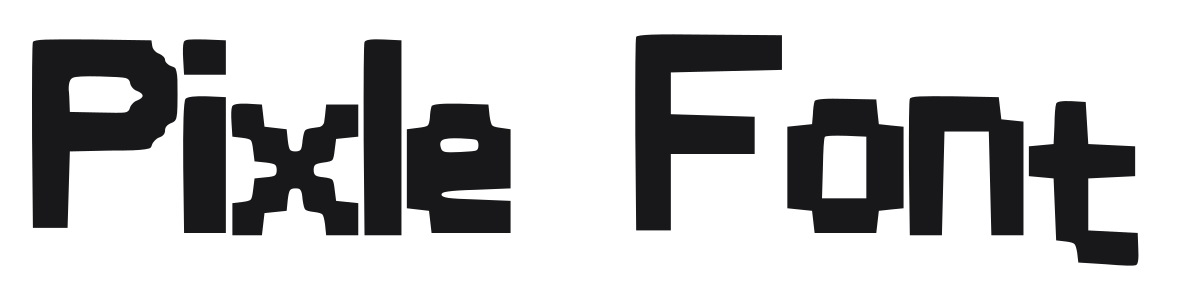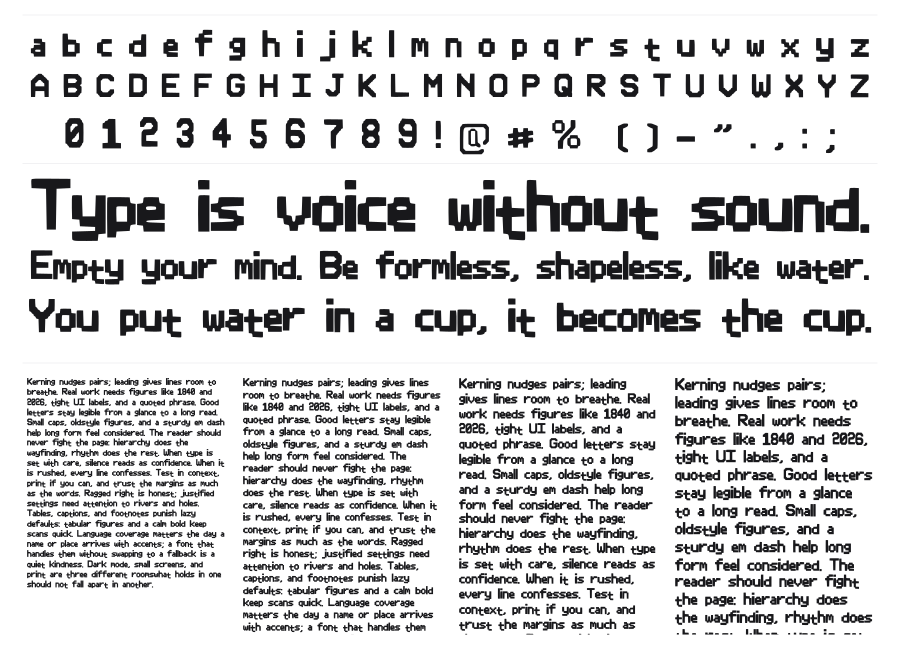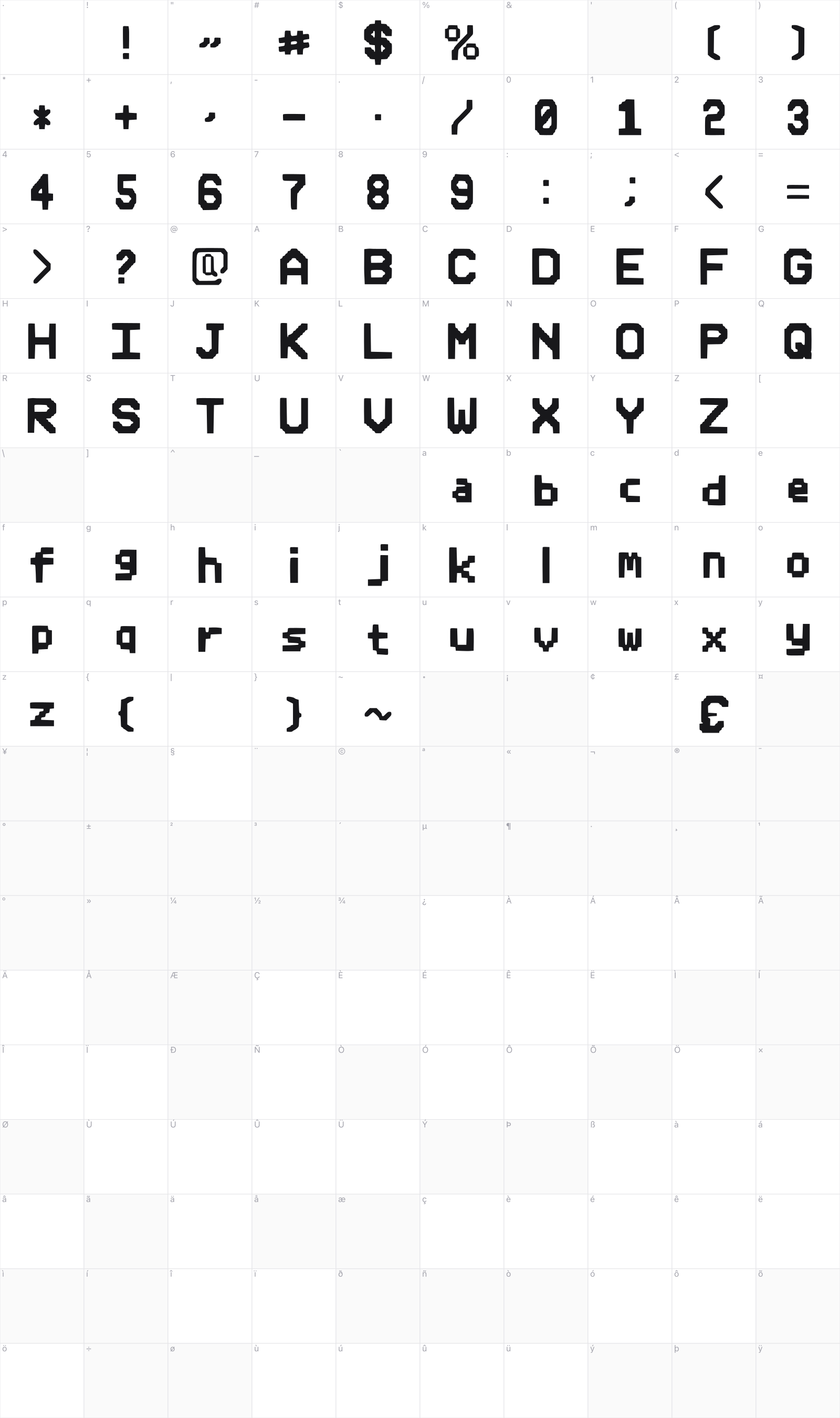
Pixle Font
Pixle Font is a bold, chunky pixel-style display face with an organic hand-drawn quality. Built on a blocky grid structure with slightly irregular edges, it sits somewhere between strict bitmap type and casual handwriting. The heavy weight and playful imperfections make it read as fun and lo-fi rather than corporate.